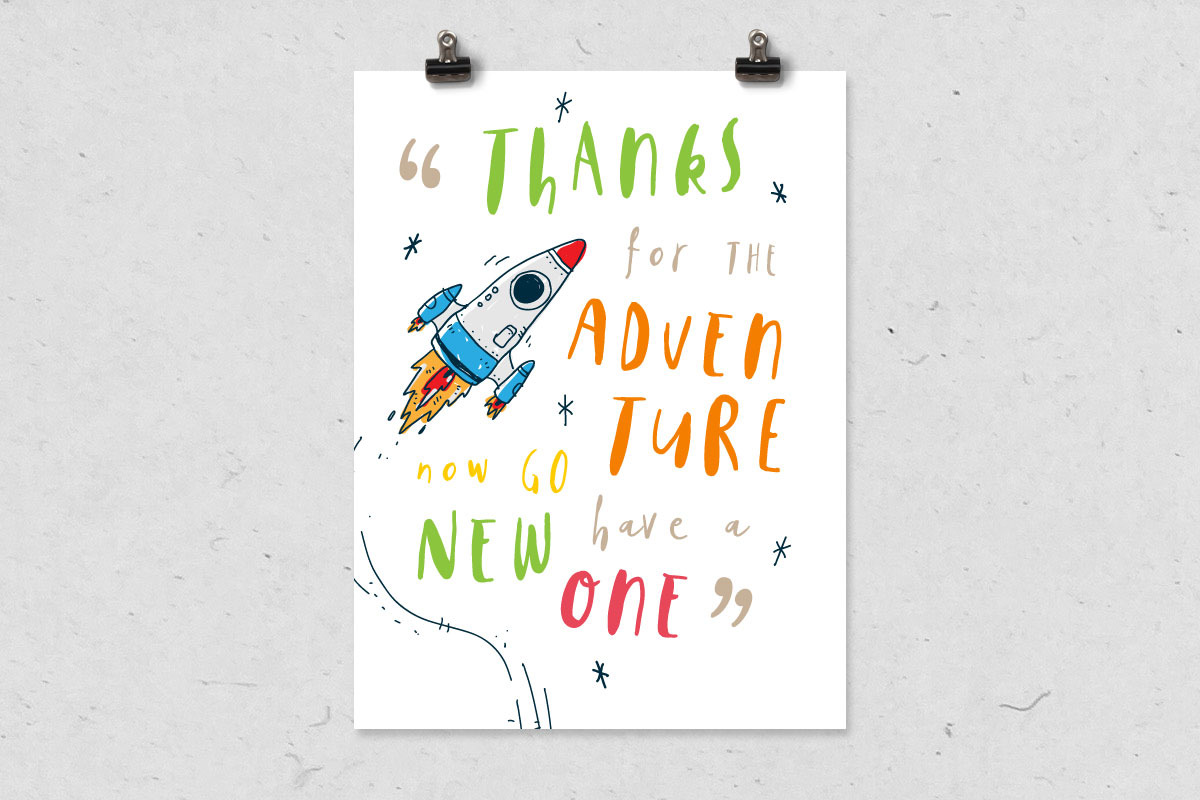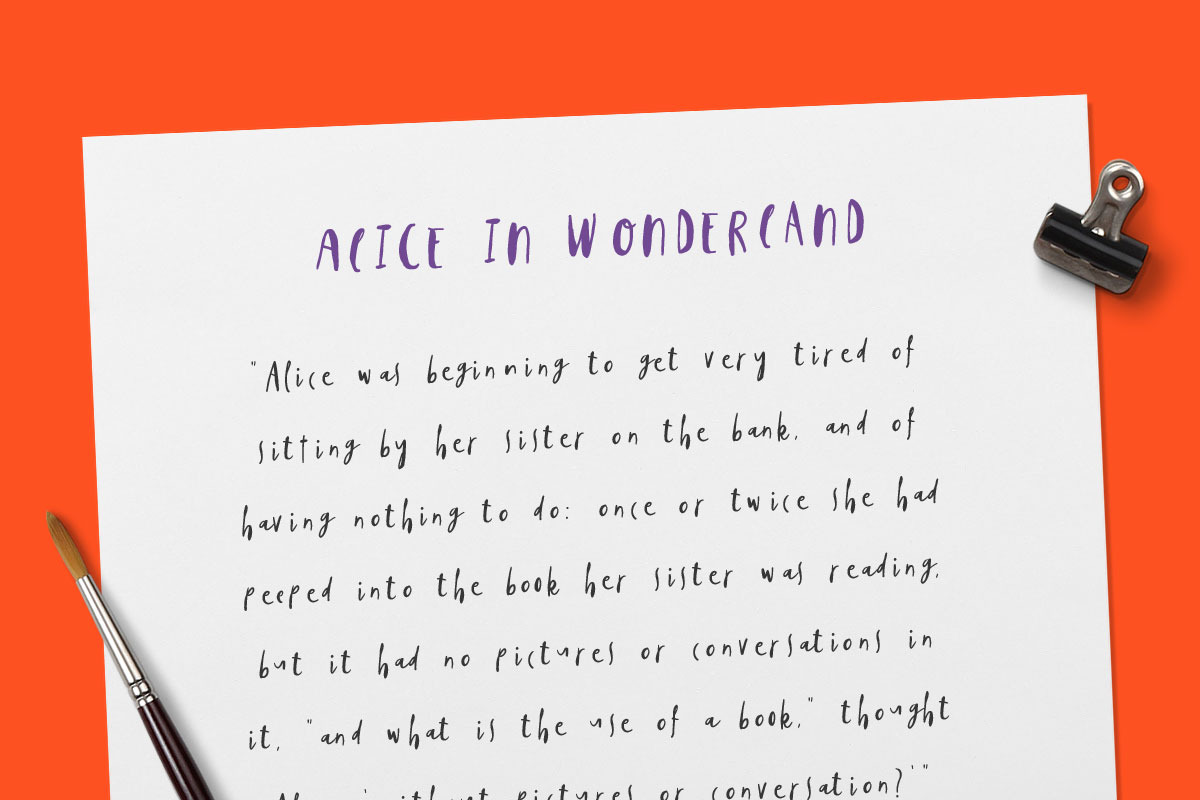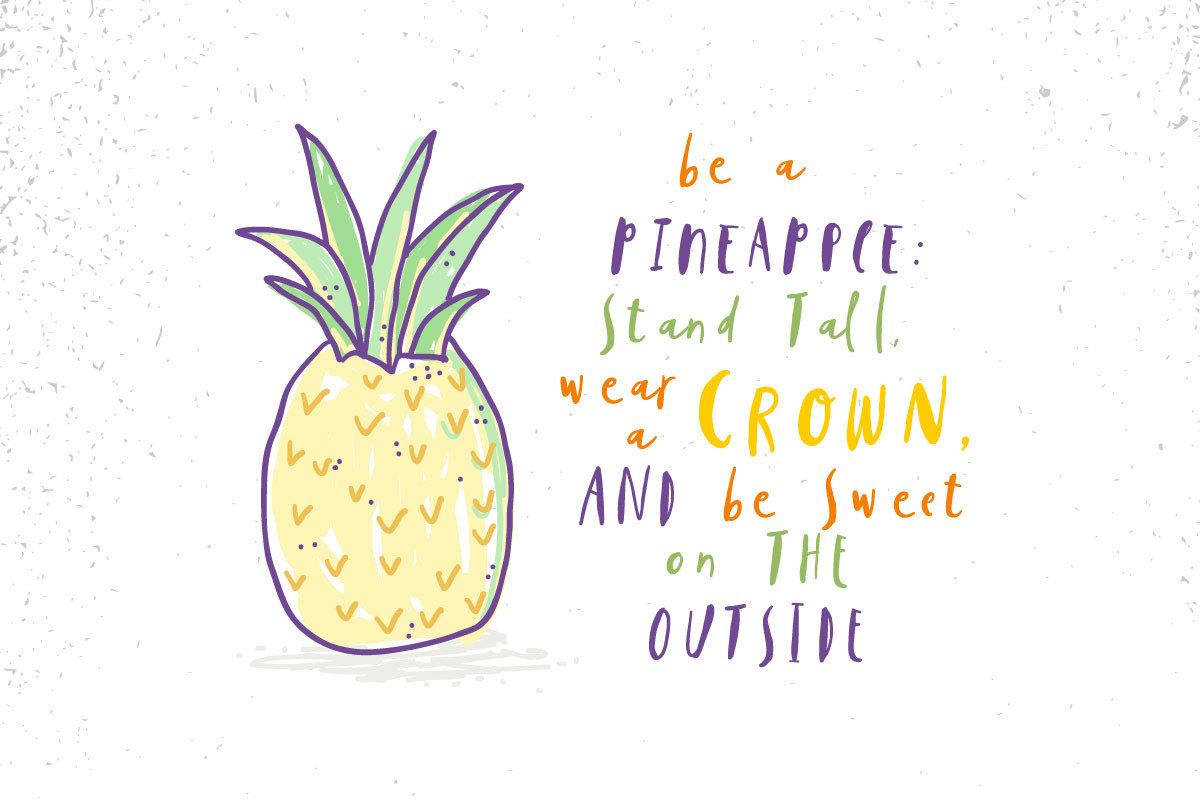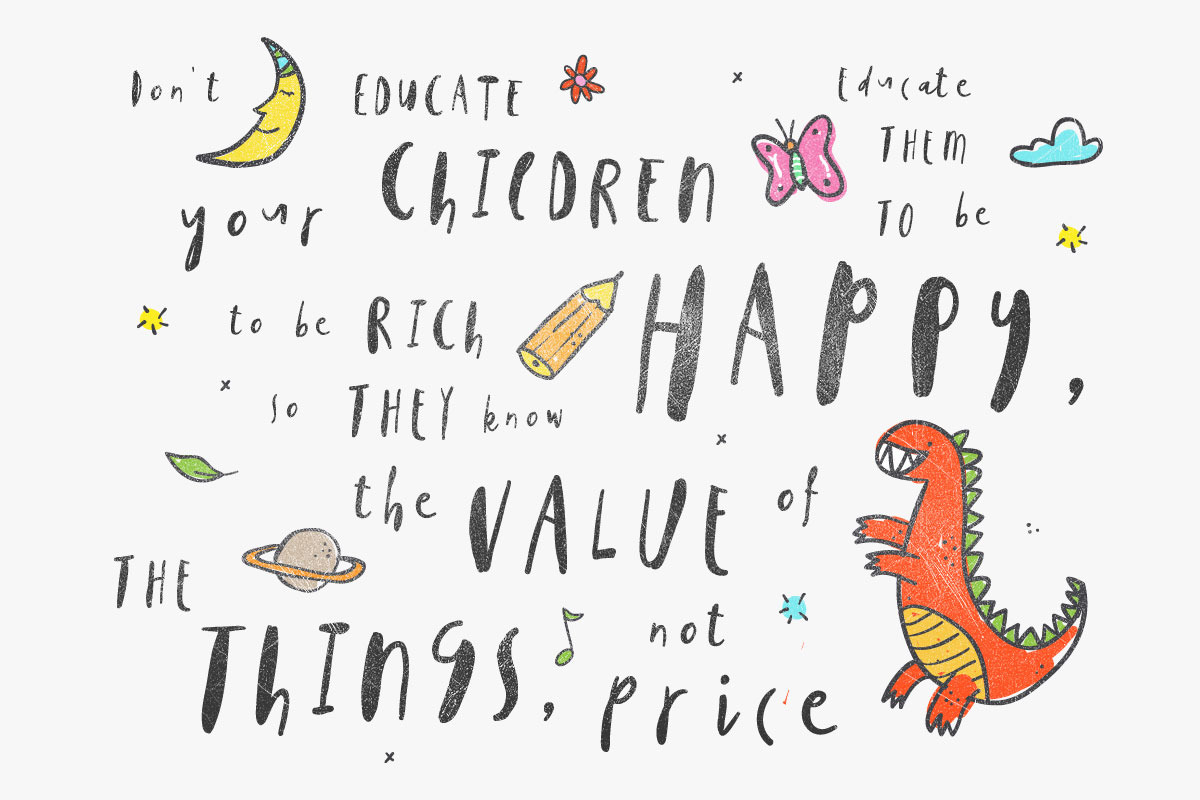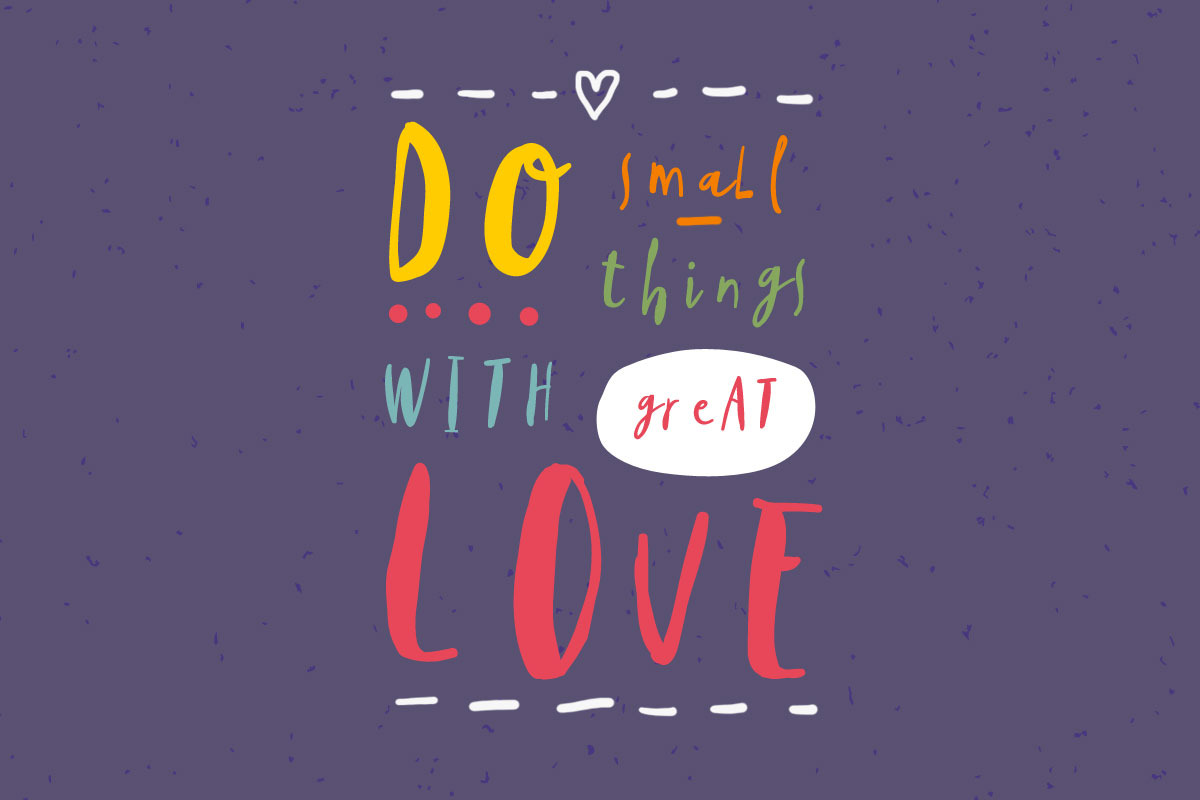
Happy Tum & Little Bite Font
Happy Tum & Little Bite Font by vuuuds is a font selected for branding, posters, packaging, typography.
Why Happy Tum & Little Bite Font is worth a look
Happy Tum & Little Bite Font by vuuuds fits naturally into Branding, posters, packaging, typography.